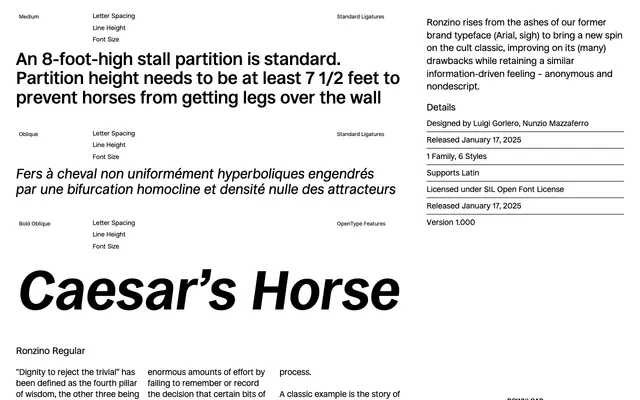
Ronzino
A free neo-grotesque by Luigi Gorlero and Nunzio Mazzaferro that reworks Arial's proportions while keeping its anonymous, information-driven character.
Built on the skeleton of Arial but with attention paid to its longstanding shortcomings, Ronzino aims for the same neutral, workaday register without the compromises of its source material. The family spans three weights with obliques, includes small capitals and alternate letterforms for 'a' and 'g', and covers extended Latin. Released under the SIL Open Font License, it positions itself as a free, considered alternative to the ubiquitous grotesques that dominate default system stacks.
Positioned as a reworking of Arial, Ronzino belongs firmly in the neo-grotesque tradition: anonymous, information-driven letterforms with even stroke weight and minimal personality markers.